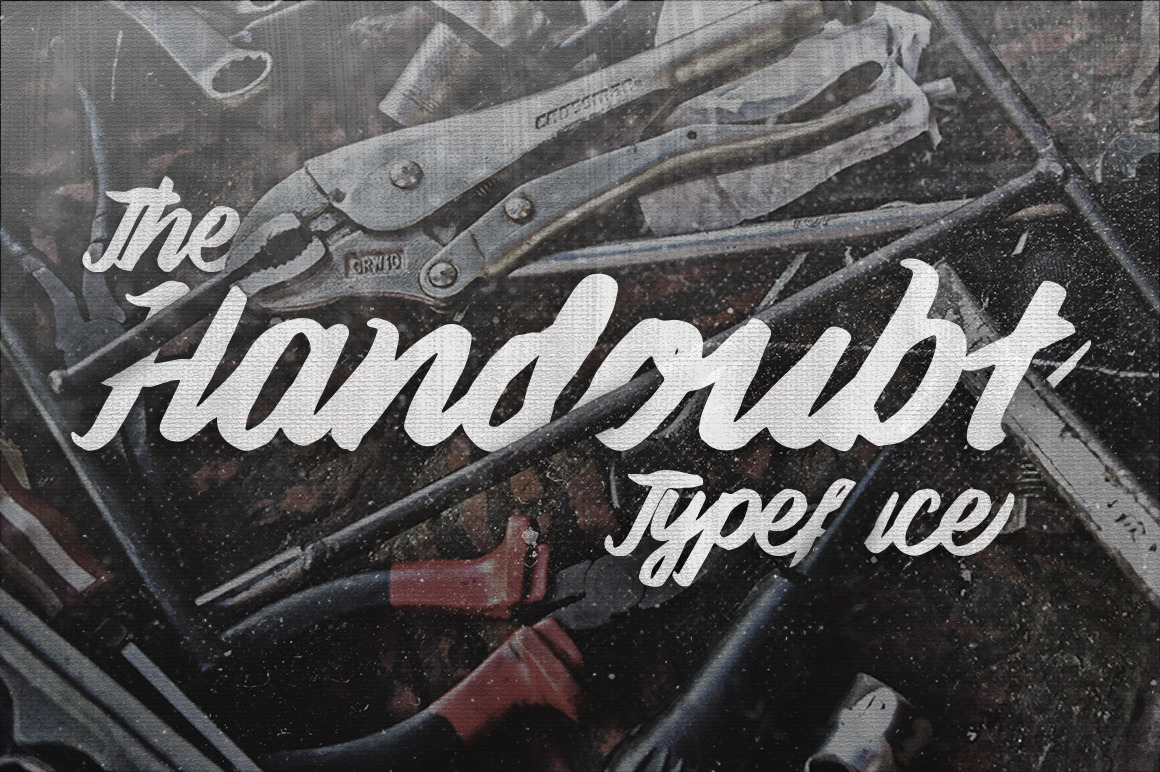
Handoubt Typeface
Handoubt Typeface is a doubtful pen brush script writings with handy feels packed with all of those imperfections and (a lil bit) jaggy lines in every single letters